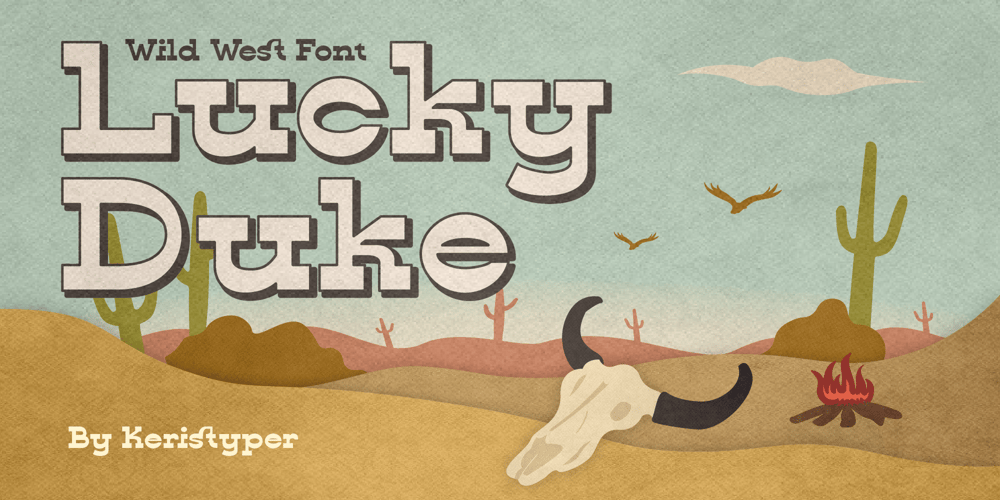
Lucky Duke
Lucky Duke font
Lucky Duke Font Family was designed by Tezar Tantular and published by Keristyper Studio. Lucky Duke contains 1 styles and family package options. Introducing Lucky Duke font a western display typeface, inspired by cowboy wild west styles. This font is good for logo design, Social media, Movie Titles, Books Titles, short text even long text letters, and good for your secondary text font with sans or serif.**Featured:*** Standard Uppercase & Lowercase* Numeral & Punctuation* Multilingual : ä ö ü Ä Ö Ü ß ¿ ¡* Alternate & Ligature* PUA encodedWe recommend programs that support the OpenType feature and the Glyphs panel such as Adobe applications or Corel Draw. so you can use all the variations of the glyphs.Hope you enjoy our fonts!